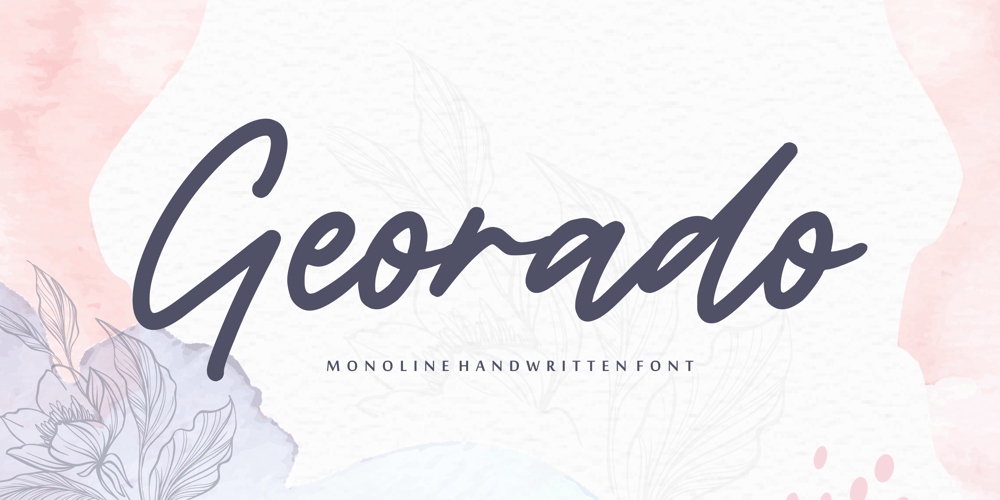
Georado
Georado Font Family was designed by Restu Angga and published by Balpirick. Georado contains 1 styles and family package options. Georado is a sweet and friendly handwritten font. Its natural and unique style makes it incredibly fitting to a large pool of designs. The only limit is your imagination!